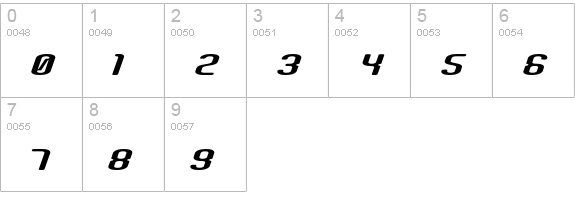
CriminalItalic font is a sleek and modern typeface that exudes a sense of mystery and intrigue. Its sharp angles and bold strokes give it a criminal edge, perfect for adding a touch of danger to your designs. This font is ideal for creating eye-catching headlines, logos, and branding materials that demand attention. The best part? CriminalItalic font is completely free to download at FontsMarket.com, making it accessible to designers and creatives looking to add a touch of edginess to their projects without breaking the bank. Don't miss out on this unique and captivating font that will set your designs apart from the rest. Download CriminalItalic today and unleash your creativity!